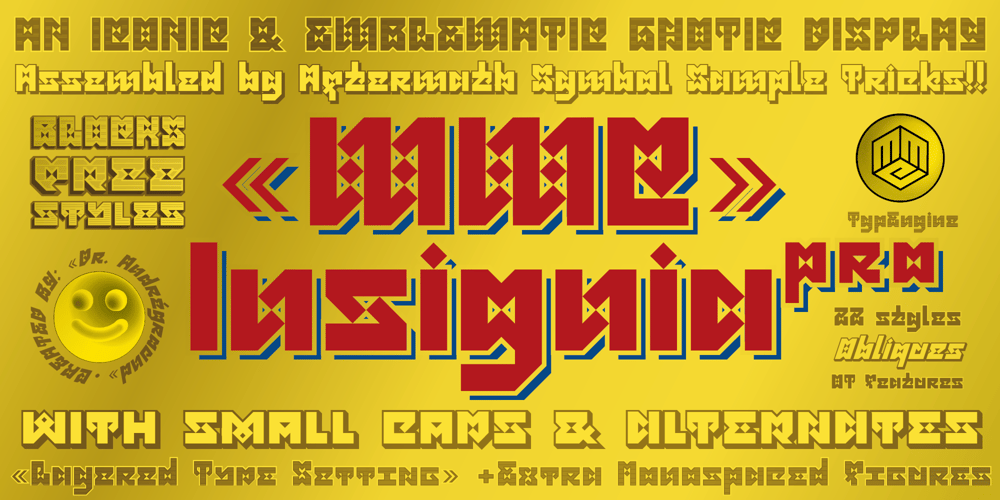
MMC Insignia Pro Font Family was designed by Dr. Andréground and published by MMC-TypEngine. MMC Insignia Pro contains 22 styles and family package options. MMC INSIGNIA PRO is an Iconic & Emblematic Extremely Geometric Display Typeface! It provides samples repetition or a pattern of this “Hourglass” Symbol throughout the typeface unraveled by a grid work, only with diagonals and perpendiculars to the square, like solving puzzles!This unique Icon or Graphic Sign, of two counterpoint triangles sampled through the whole Characters, which can be implicit as hourglasses, is a potential trend that has already been used firstly in a few different Logos, plus it alludes also to a famous International Bank, that doesn’t need to be mentioned as it’s instantly associated. And this characteristic was the main motivation for creating this type.It Includes Small Caps & Stylistic Alternates!! +Extra Monospaced Figures. In 22 styles, with Obliques, both for single display and layer Typesetting, plus OpenType Features & Bonus Blocks Fonts!This Font-Family has a strong Branding emphasis plus it can be applied in many environments, from Corporative to Decorative fields, plus give a taste to Icons of Modernism or Flavored in an Old Fashion way! It may reminisce atmospheres surrounded by Federalism, Bohemia, showbiz and gastronomy if you will!NEW TIP! – Letter-Spacing:Letter-spacing can seem to be a little tight on this font-collection, after a while from had first designed and published, it was discovered that the space between the letters currently set to the half width of the ‘I’ or the ‘stem’ would be better readable and improve legibility if the letter-spacing sum equals to the ‘I’ or stem.In order to fix that and improve type results the user who picked these fonts can use a simple trick or tweak with the 2 secrets below, that will make the letter-spacing fit perfectly as it should with a one to one equal 100% exact width.For Web-Fonts Sites Development usage:1. Set Letter-spacing to 0.075em.For Type and Design in Adobe Software’s:2. Or Use Tracking value of ‘35’. Tracking is the opposite of kerning and both Kerning and tracking fields can be found side by side in character panels.*A future re-edition replacement update is planned to come fix this and a few other more improvements as soon as possible.Layer Type-Setting Tips:1. Combine styles into multiple possibilities of Chromatic Typesetting, by ‘central pasting’ layers… You may dislocate layers for improvisations!2. USE BLOCK-STYLES 1 & 2 also to add default 3D! Change 3D directions by switching Block 1 to Block 2. You may also set the block layer up to the bottom limit and make the 3D direction turn upside down.*As also, using the suggested tracking or letter-spacing adjustments will enable more combinations results as styles with layers Type-Setting Designs.Usage Suggestions:This Typeface can generate Fancy Display Logos and Titling, Remarkable Branding Projects, Labels, Emblems, Crests, Badges, Patterns, etc. For the reason it was called MMC Insignia, it can be suited to everything that has a sense of Royalty or Nobel and increases value on distinguished marks or attributes of Power, plus designs of Excellence!Type as a Wizard & Go Excelsior!Greetings,André, MMC-TypEngine (Dr. Andréground).